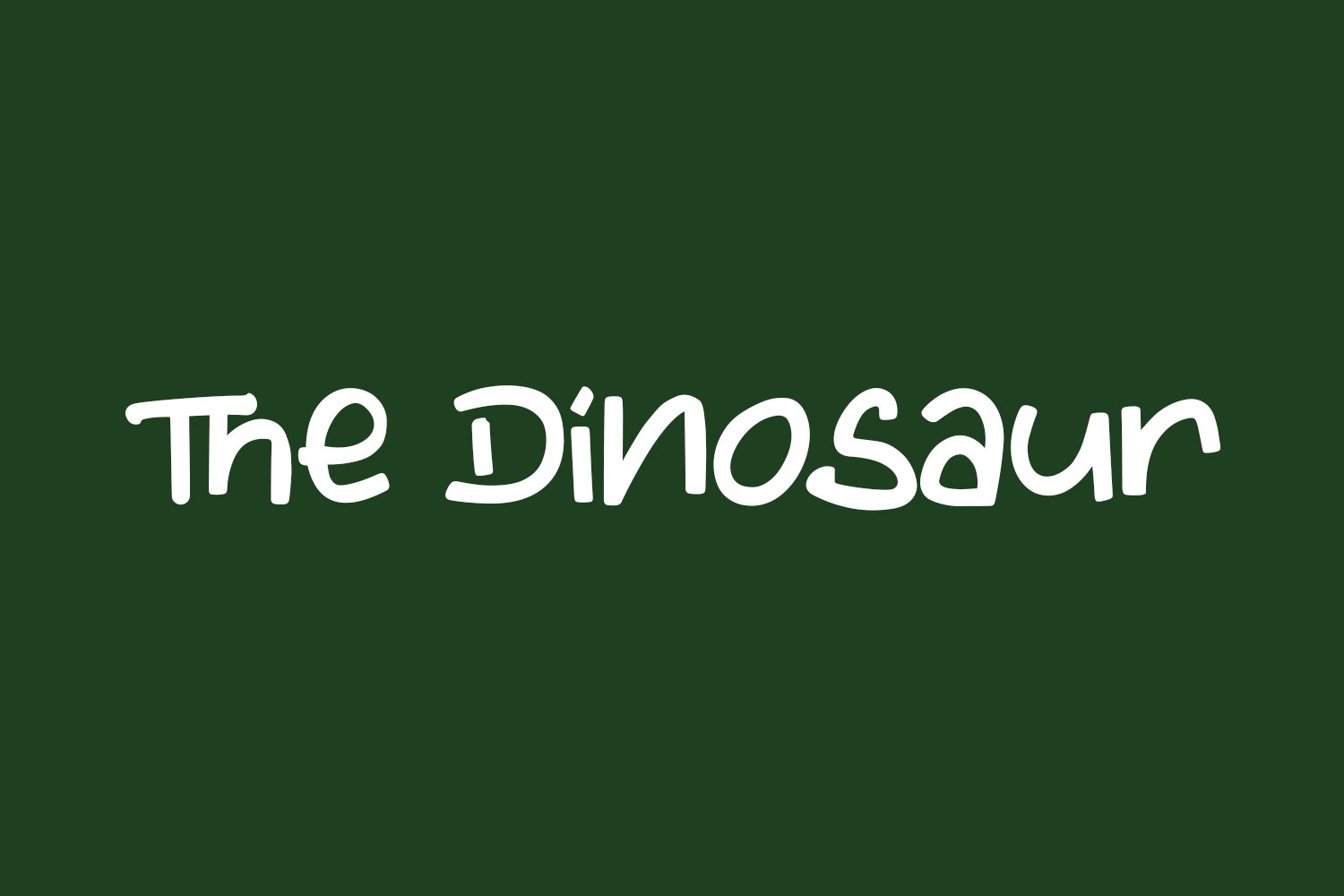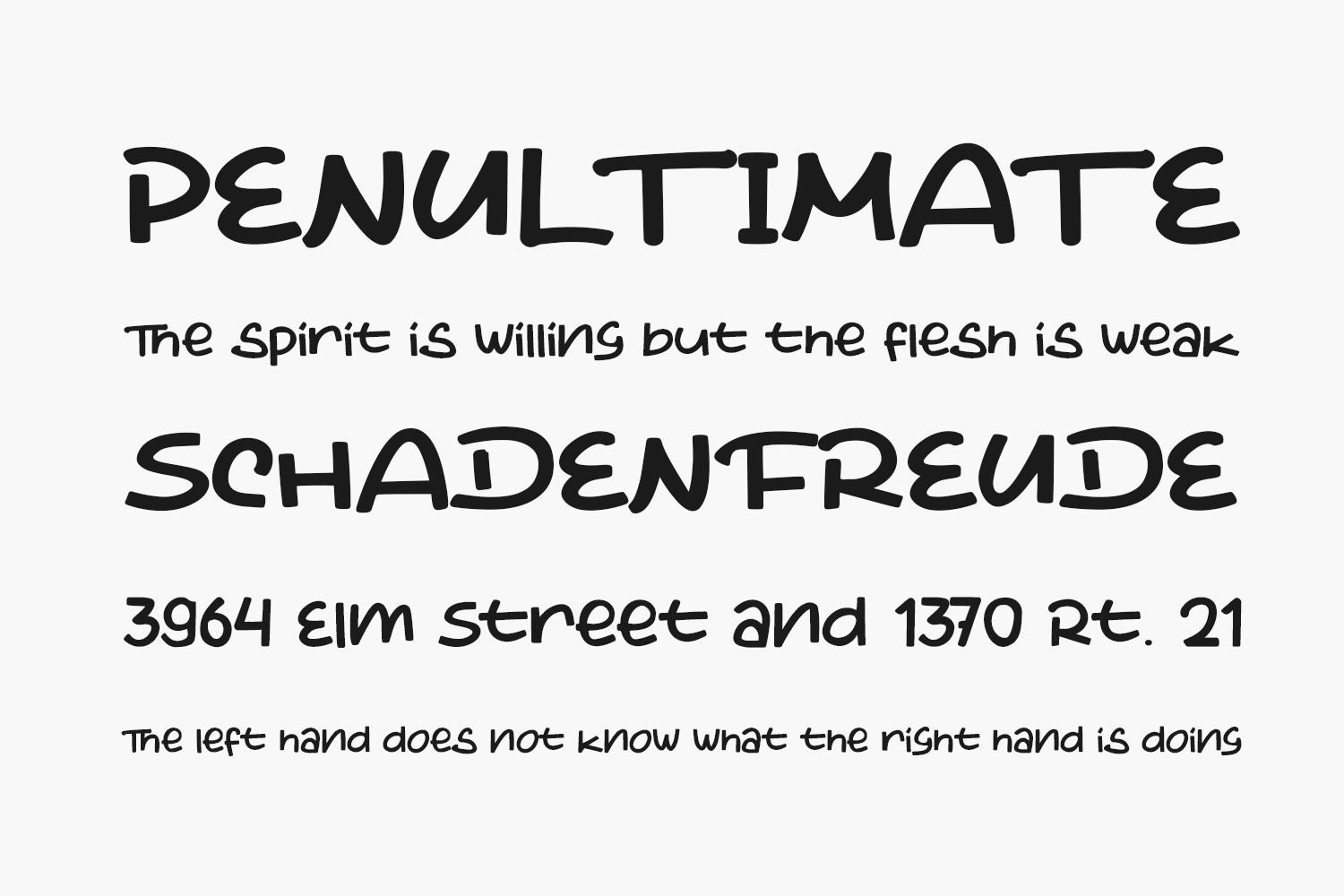
The Dinosaur Free Font is a cool and natural display font. Whether you are using it for cartoon-related designs, children’s games, quotes, titles, brand names, book covers, posters, or just any creation that requires a touch of trendiness, this font is a great choice. The Dinosaur Free Font was designed by Tigadestd and is free for personal use only. Please purchase the full version for commercial use.